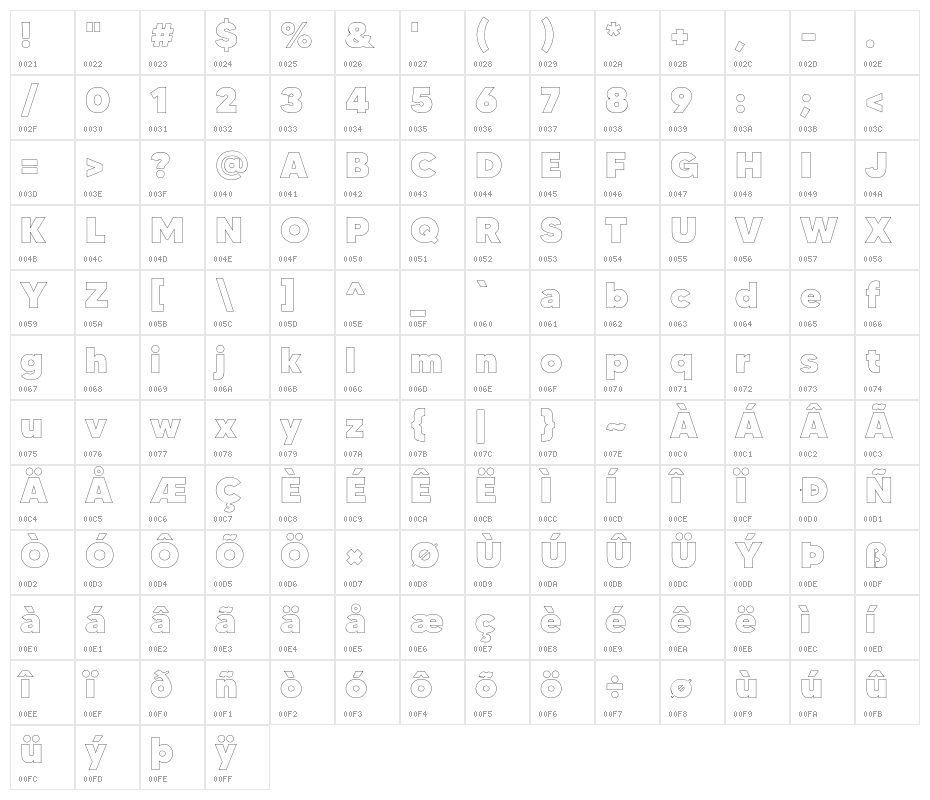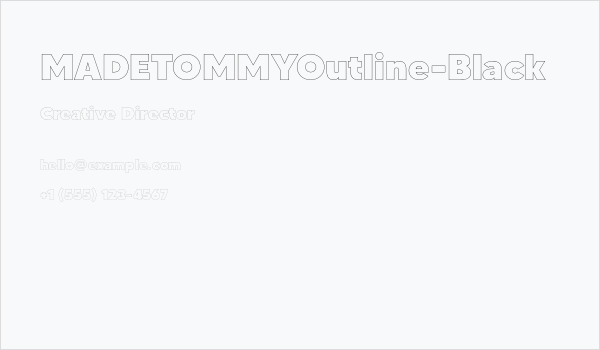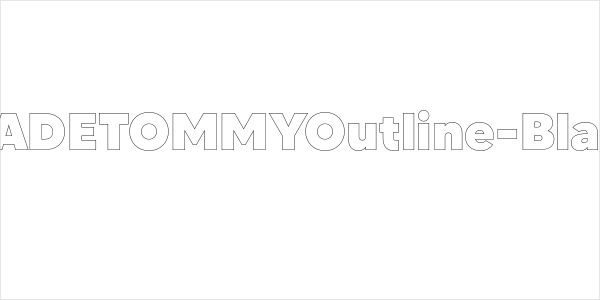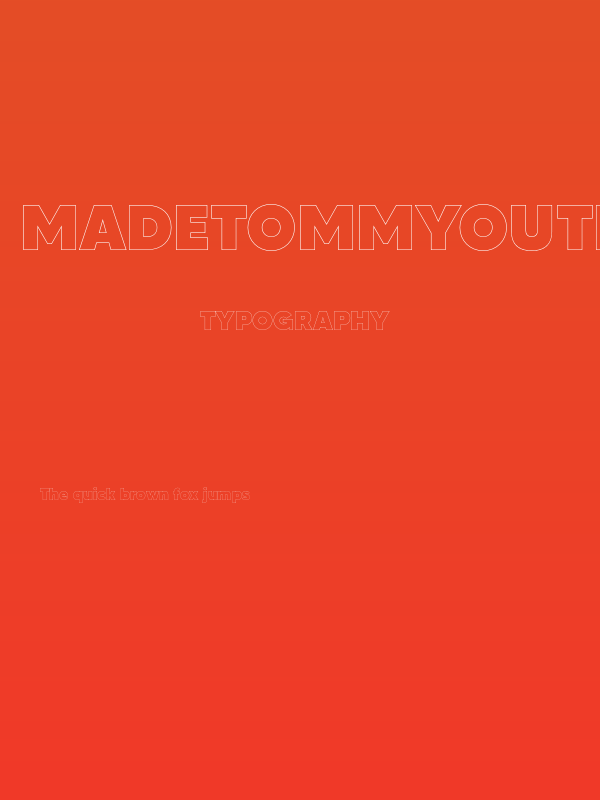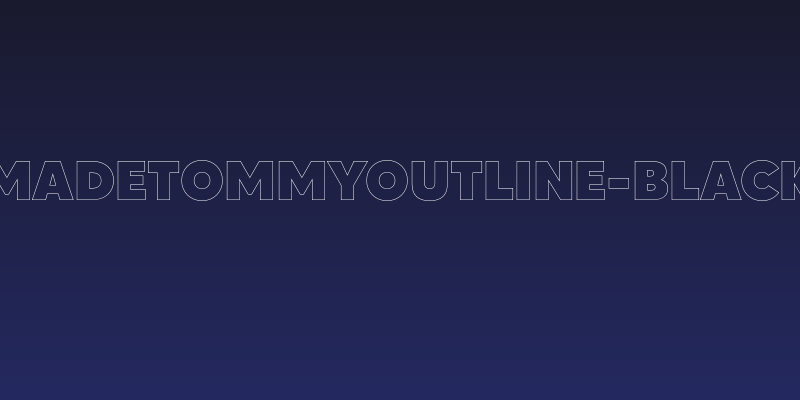
MADETOMMYOutline-Black Font
MADETOMMYOutline-Black Description
This font features a bold, geometric sans-serif style with clean, sharp edges and a modern outline design. The uppercase and lowercase letters maintain a consistent width, creating a uniform appearance. The numerals are equally bold and clear, making them highly legible. Special characters are included, maintaining the same bold outline style, which adds versatility for various design needs. The overall aesthetic is contemporary and striking, suitable for making a strong visual impact.
| Proposed Projects | Ideal for branding, posters, headlines, and any design project requiring a modern and impactful look. |